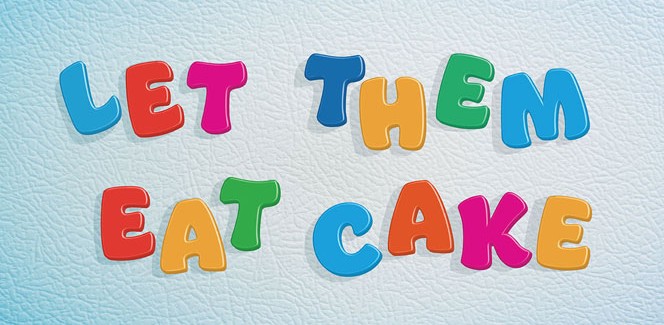
Juicy font
Every now and then anyone of us feels the need to escape from the monotonous and grey daily routine, from the dull and repetitive tasks and problems we encounter every day. This escape could not necessarily be a long break or holiday, a great adventure. We can find a temporary shelter even in smaller things that can make our lives more merry and colorful even for a brief moment. Now the experienced US designer Laura Worthington provides us with one such means – her enchanting new release Juicy font.
Juicy is a contemporary handwritten font that will immediately strike you with its playful, joyous and friendly appearance. With it, you will make a journey back in the happy days of the childhood when everything seemed very simple and full of color. Laura Worthington used different means to achieve this splendid effect and especially thick, curvy strokes, rounder edges and a large variety of counterforms. When speaking of variety and possible options provided, we have to mention the 240 characters, the stylistic alternates and the ligatures included. With both its nice features and amazing appearance, Juice font family will be extremely suitable for advertising, posters, packaging and any fun related items and especially toys and games.
Juicy font is another example of how far can Laura Worthington go, especially when it comes to hand-drawn fonts and scripts. You can further witness the beauty of her handwritten letters by following these links: